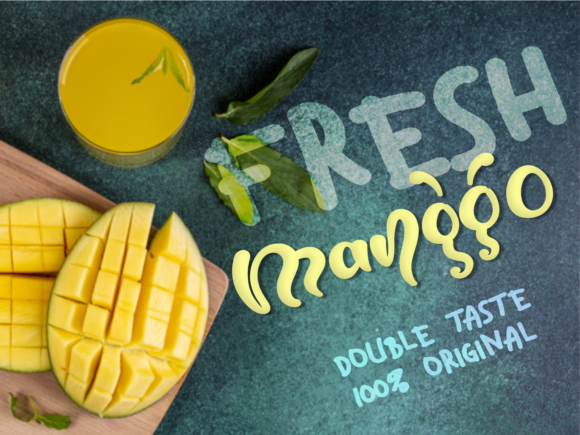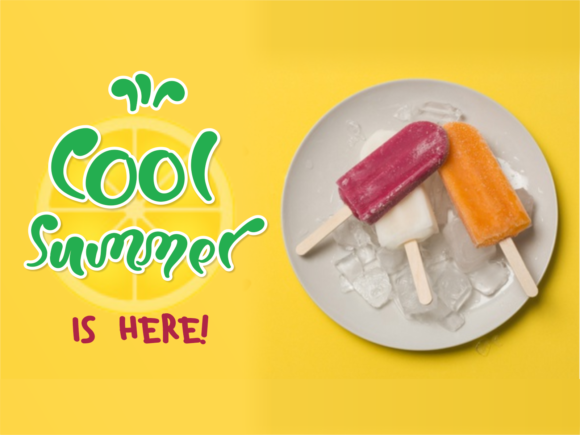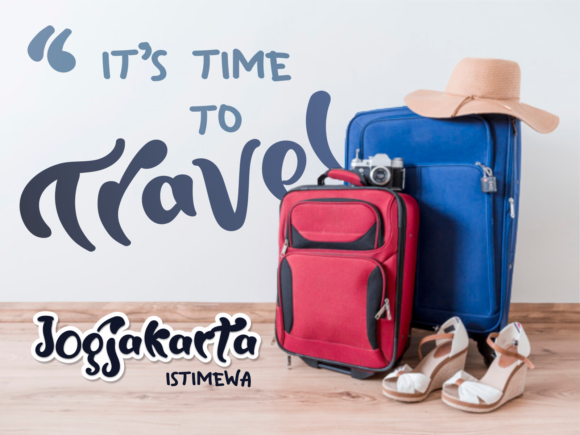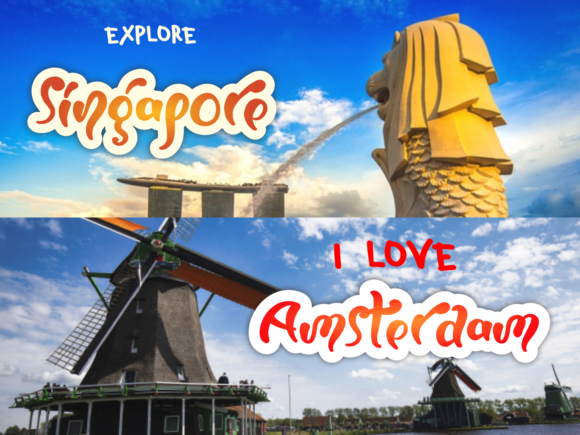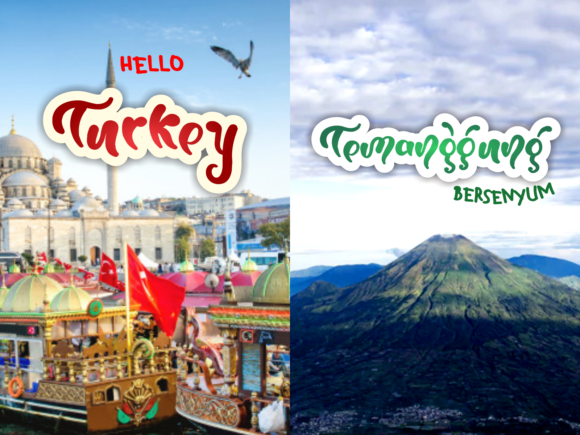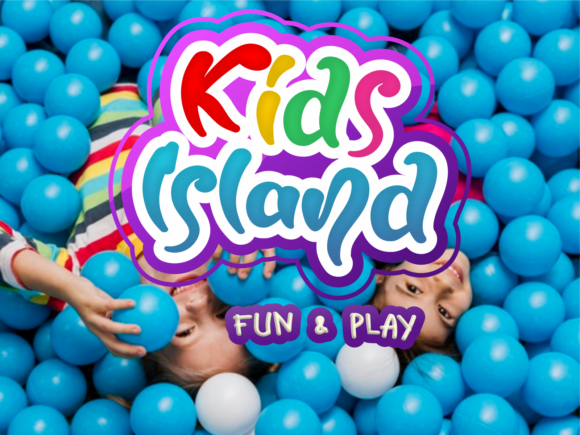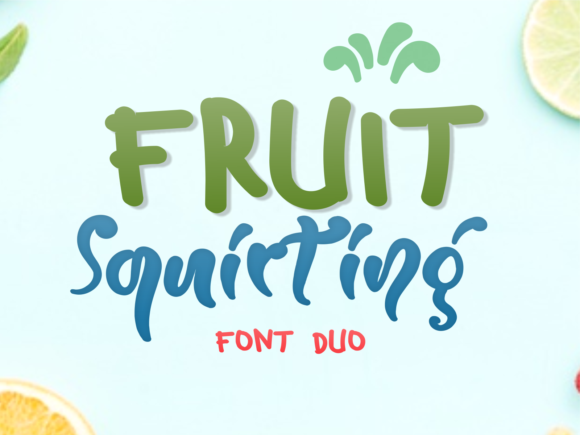
Fruit Squirting Font: Elevate Your Designs with Elegance and Sophistication
In the world of typography, a well-chosen font can make all the difference in elevating your design from ordinary to extraordinary. If you’re a designer, crafter, or simply someone who appreciates beautiful typography, you’re in luck! Introducing Fruit Squirting, a chic and refined script font that exudes sophistication and elegance. With its stylish alternates and ligatures, this font is the perfect match for any project that demands a touch of luxury.
What Makes Fruit Squirting Font So Special?
Fruit Squirting is more than just a pretty face. This font has been carefully crafted to provide a unique and versatile typographic experience. Here are just a few features that set it apart:
• PUA Encoding: Fruit Squirting is PUA (Private Use Area) encoded, which means you can access all of the glyphs and swashes with ease. No more tedious font editing or complicated workarounds – simply type away and enjoy the creative freedom that comes with PUA encoding.
• Stylish Alternates and Ligatures: With Fruit Squirting, you’ll have access to a range of stylish alternates and ligatures that will take your designs to the next level. Whether you’re creating a logo, branding materials, or social media graphics, these extra features will help you add a touch of personality and flair.
• Elegant and Refined: Fruit Squirting is the epitome of elegance and sophistication. Its refined script style is perfect for projects that demand a high level of professionalism and poise.
Whether you’re a seasoned designer or a crafter looking to add a professional touch to your projects, Fruit Squirting is the perfect choice. Here are just a few ways you can use this versatile font:
• Logo Design: Create stunning logos that exude elegance and sophistication. Fruit Squirting’s stylish alternates and ligatures make it perfect for crafting unique and memorable brand identities.
• Branding Materials: Take your branding to the next level with Fruit Squirting. Use it to create business cards, letterheads, and other marketing materials that showcase your brand’s personality and style.
• Social Media Graphics: Add a touch of luxury to your social media graphics with Fruit Squirting. Whether you’re creating Facebook posts, Instagram stories, or Twitter headers, this font is sure to make your designs stand out.
• Crafting Projects: If you’re a crafter, Fruit Squirting can add a professional touch to your projects. Use it to create beautiful signs, labels, and other decorative elements that showcase your creativity and skill.
Tips for Getting the Most Out of Fruit Squirting
To help you get the most out of Fruit Squirting, here are a few tips and tricks:
• Experiment with Alternates and Ligatures: Don’t be afraid to try out different alternates and ligatures to see what works best for your design. You might be surprised at how a simple change can elevate your typography.
• Play with Font Sizes and Colors: Fruit Squirting looks great in a range of font sizes and colors. Experiment with different combinations to find the perfect look for your design.
• Pair it with Other Fonts: Fruit Squirting pairs beautifully with other fonts. Try combining it with a bold sans-serif or a elegant serif font to create a stunning typographic combination.
In conclusion, Fruit Squirting is a truly exceptional font that deserves a place in every designer’s toolkit. With its elegant and refined script style, stylish alternates and ligatures, and PUA encoding, it’s the perfect choice for any project that demands sophistication and elegance. Whether you’re a designer, crafter, or simply someone who appreciates beautiful typography, Fruit Squirting is sure to inspire and delight. So why wait? Download Fruit Squirting today and take your designs to new heights!